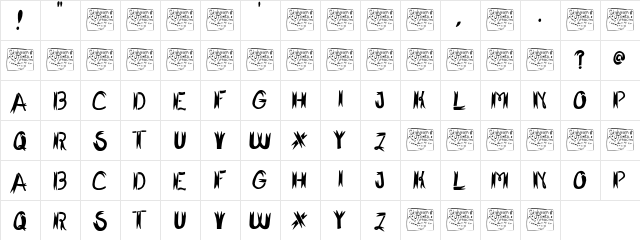
Shark Fighter Regular
Design Context for Shark Fighter Typeface
Shark Fighter is a composed and adaptable typeface that performs quietly and consistently across a wide range of design contexts.
Pro Tip: Use Shark Fighter in both headline and body roles to test its range before committing to a single application.